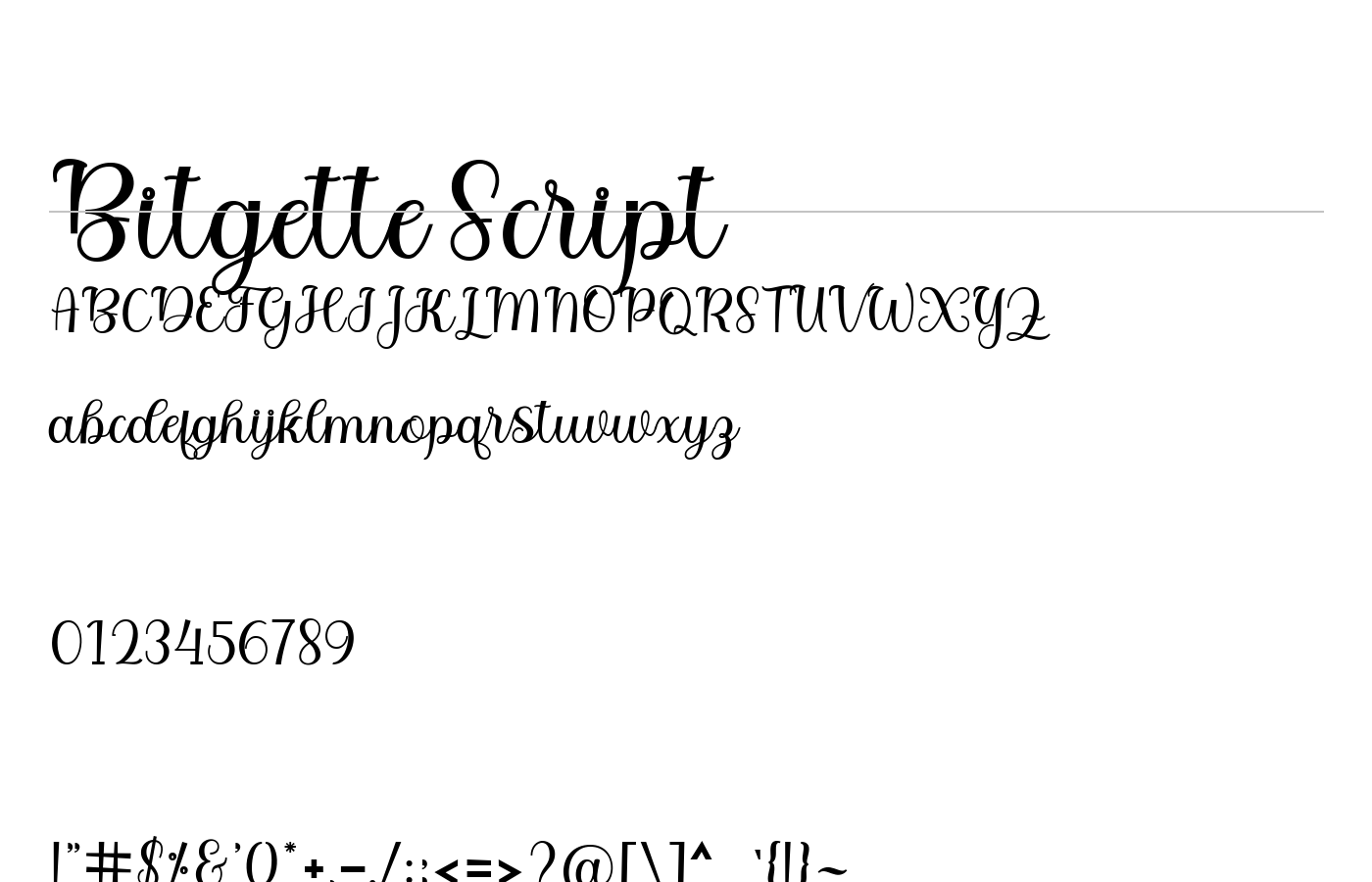
Bitgette Script is a delicate and elegant script font with smooth, flowing strokes and fine details that create a refined, handwritten feel. Its slender letterforms and graceful curves make it ideal for feminine, romantic, or vintage-inspired designs, perfect for invitations, branding, and decorative headlines. This font works best where a sophisticated and personal touch is needed to enhance the visual appeal.
Bitgette Script Font
About Bitgette Script Font
| Font family | Bitgette Script Font |
| Designer | Nurul kamal |